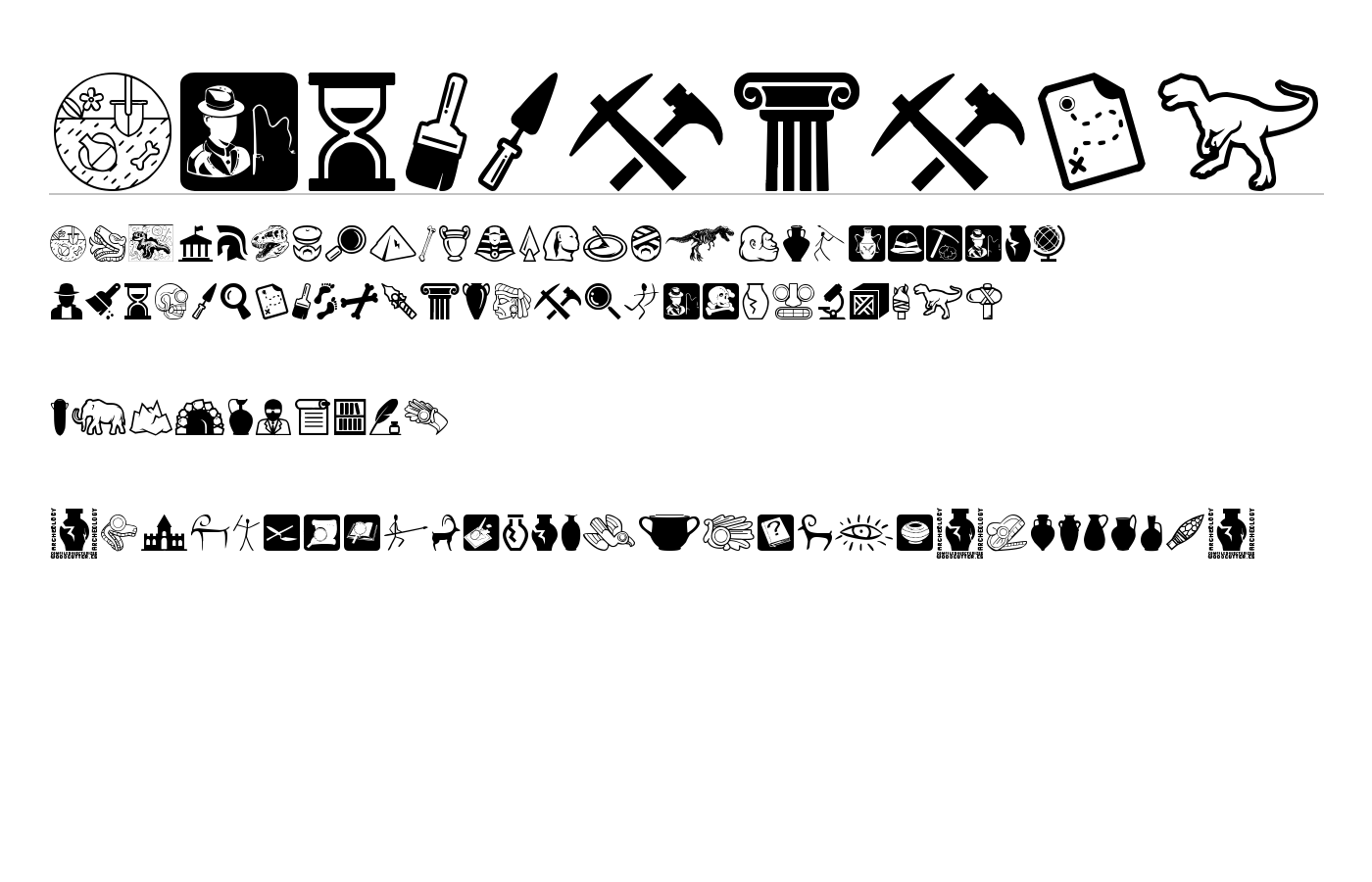
Archeology Font is a unique symbol font packed with detailed, bold icons that evoke themes of history, excavation, and ancient discovery. Its solid, high-contrast shapes and clear imagery make it perfect for adding a vintage, scholarly, or adventurous touch to designs related to museums, educational materials, or themed events. This font works best for eye-catching headlines, logos, and project branding where distinctive visual storytelling is needed.
Archeology Font